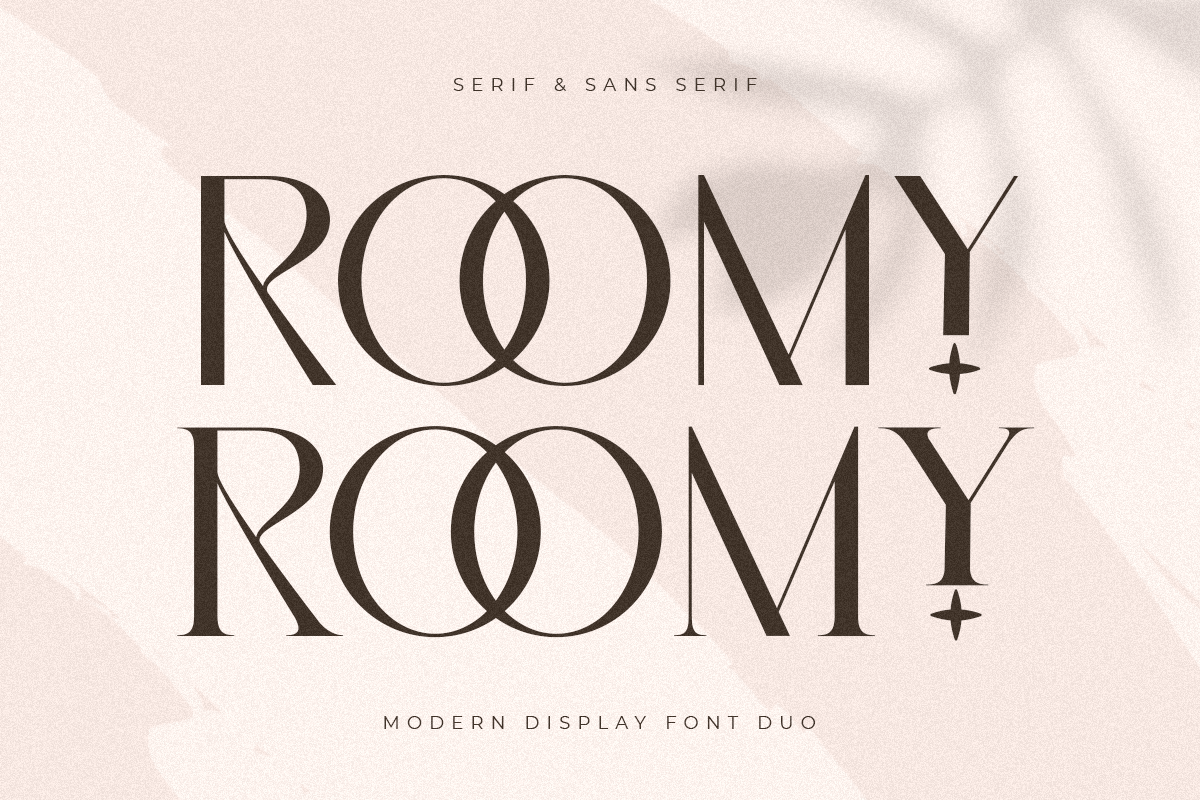
Roomy
-Modern Display Font Duo
Roomy Sans Serif
Roomy Serif
Roomy is designed with a versatile and modern style that will suit any project. The font is available in two versions, a serif and sans serif version. They are perfect for use in print projects, and powerful to attention-grabbing branding projects.